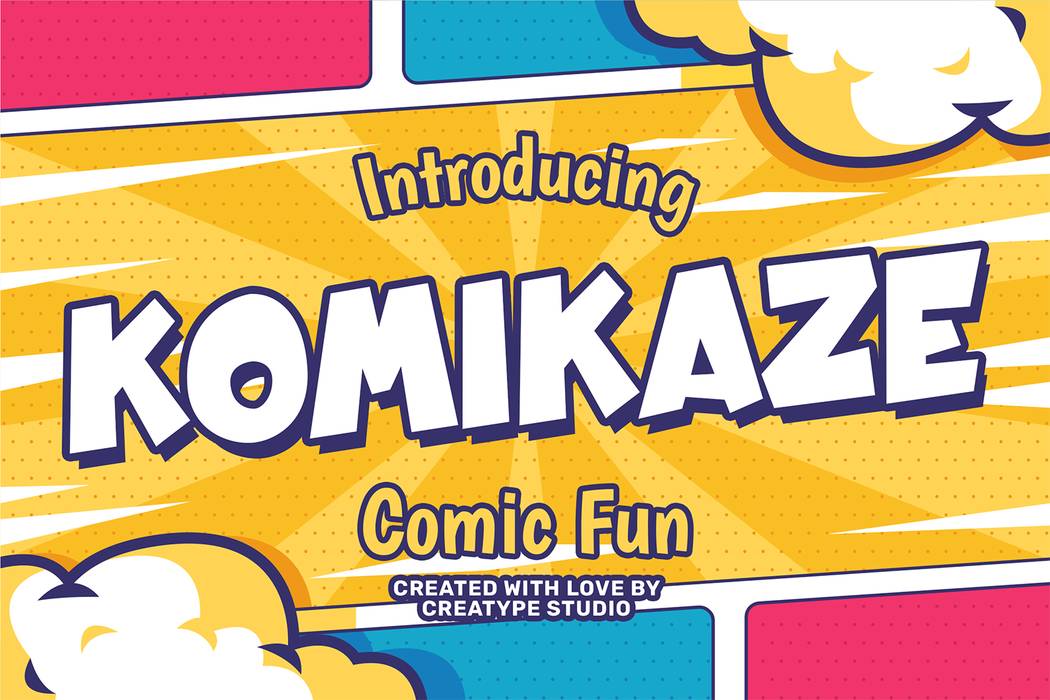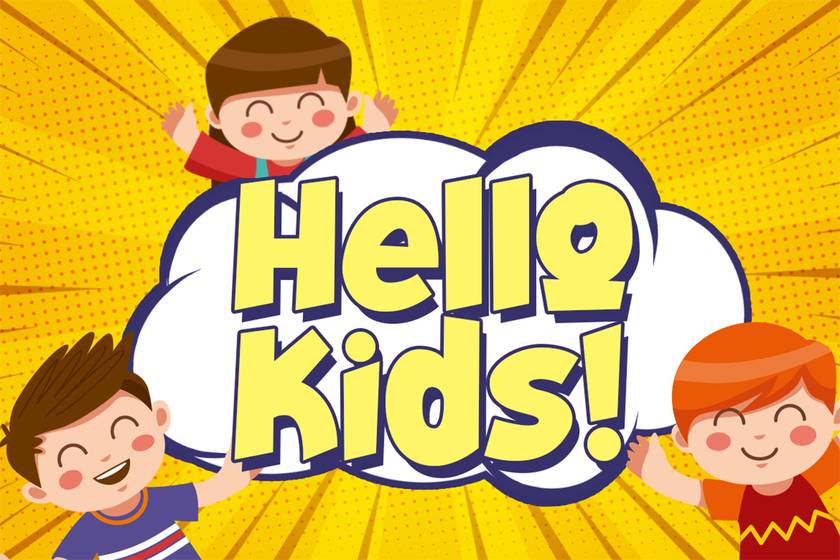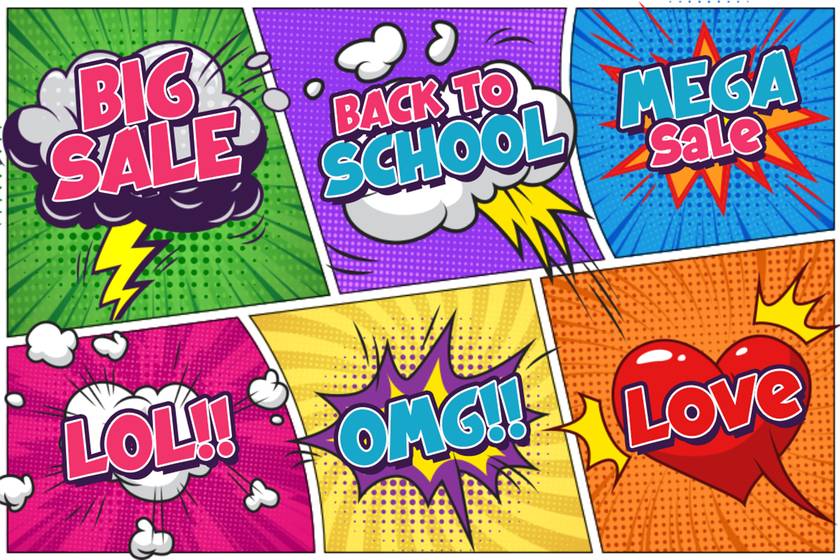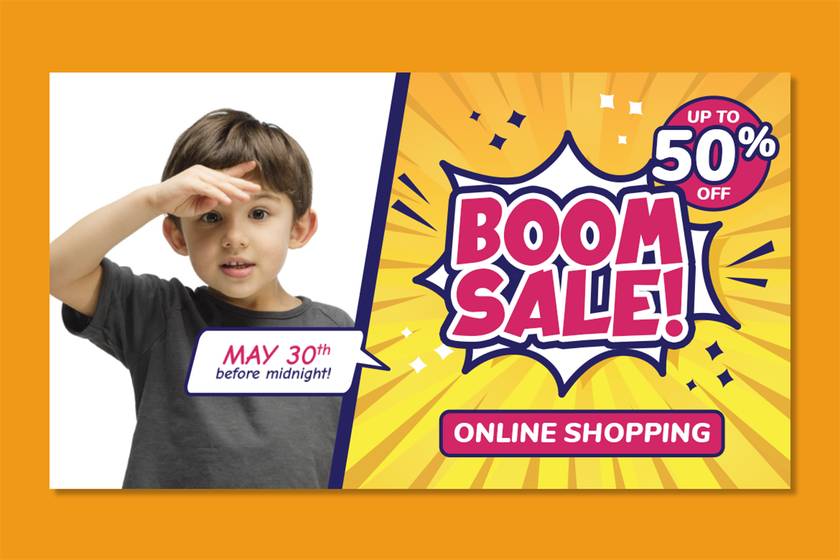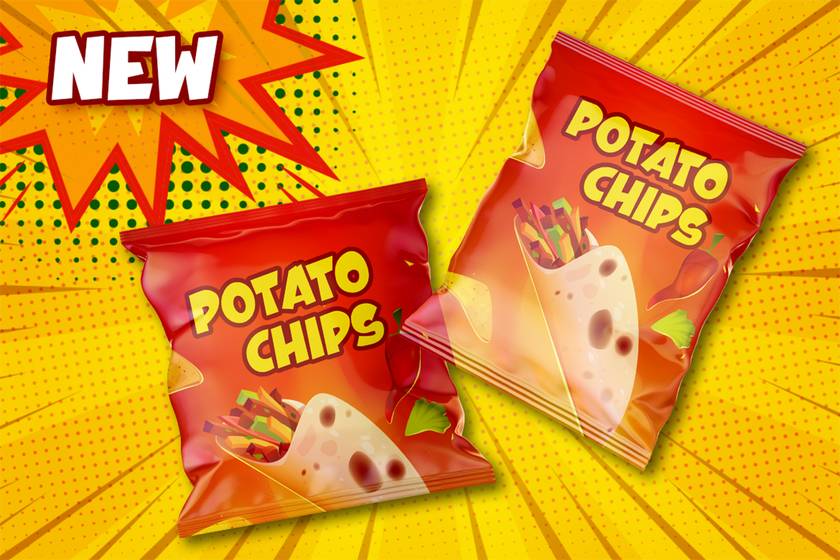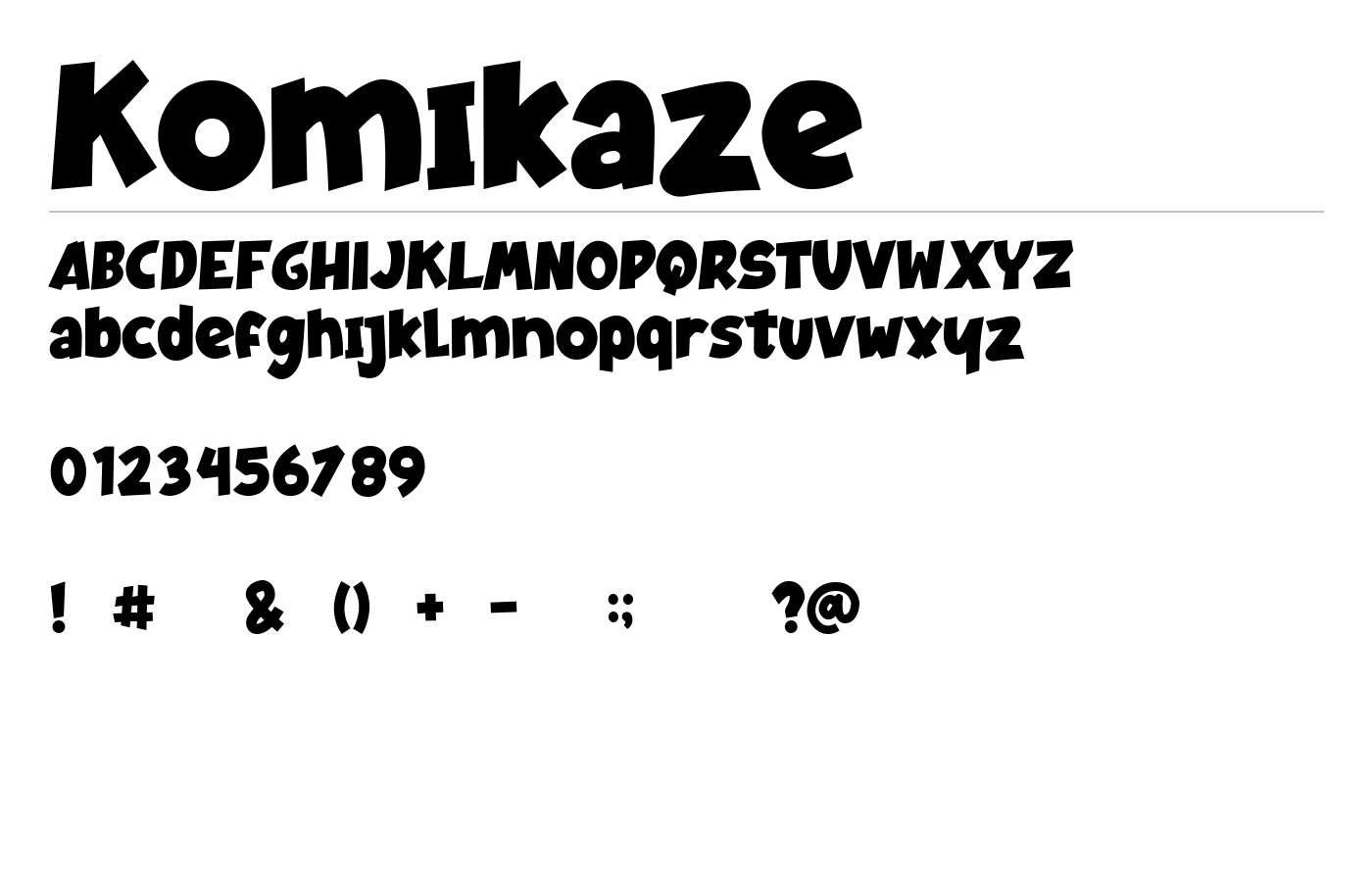
Komikaze is a bold, playful sans serif font characterized by its chunky, slightly irregular letterforms that give it a lively, hand-drawn feel. Its strong, energetic style makes it perfect for fun, informal designs like comic books, posters, children’s products, or any project seeking a quirky and approachable personality. The font’s uneven strokes and whimsical shapes help convey creativity and youthful energy, making it a great choice for eye-catching headlines and display use.
Komikaze Font
About Komikaze Font
| Font family | Komikaze Font |